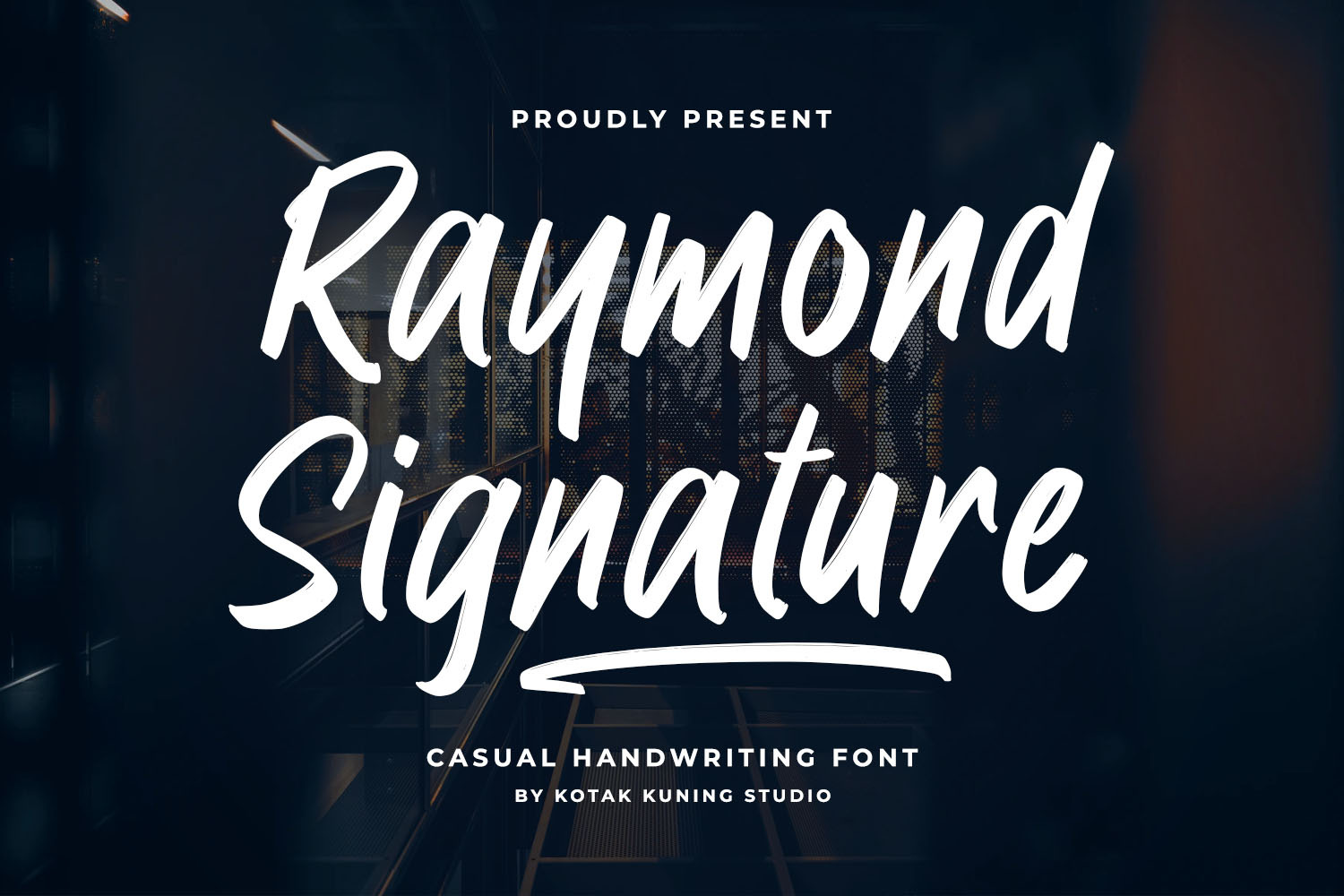
Raymond Signature is a bold and brushed handwritten font. It features an incredibly classic style, while still keeping a casual vibe. Raymond Signature is the perfect font for making original and outstanding designs.